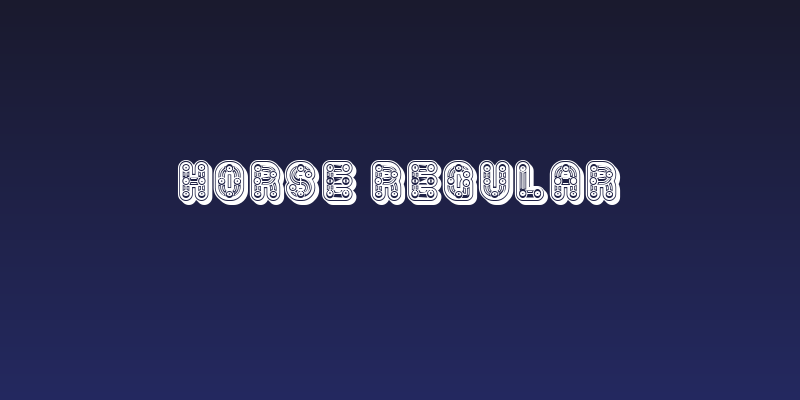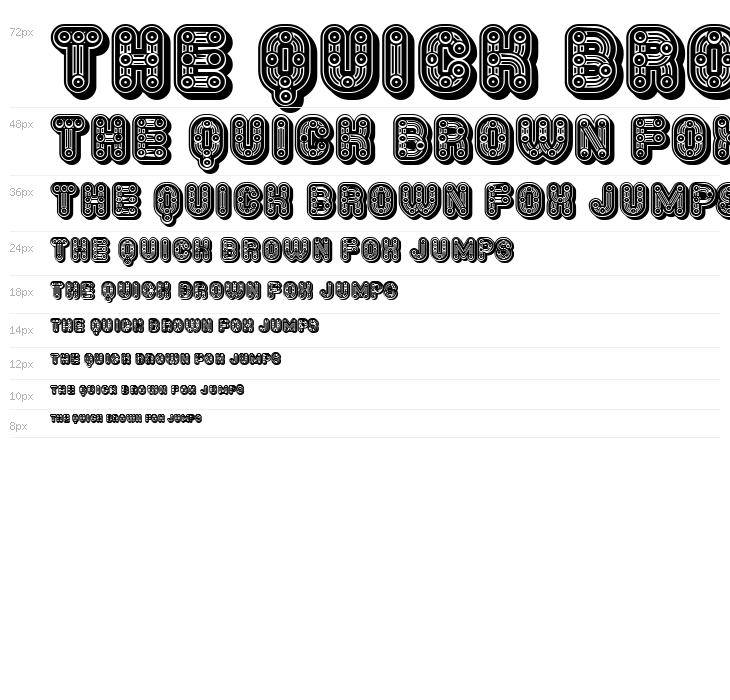
Horse Regular Font
Horse Regular Description
This font features a unique, decorative style with intricate patterns within each character. The letters are bold and have a three-dimensional appearance, with a layered effect that adds depth. The design includes circular and linear elements that create a complex, eye-catching aesthetic. The font is highly stylized, making it ideal for creative and artistic projects. Its boldness and intricate detailing make it stand out, ensuring that any text using this font will capture attention. The characters are evenly spaced, maintaining readability despite the elaborate design.
| Proposed Projects | Ideal for posters, album covers, branding, and any project requiring a standout, artistic font. |